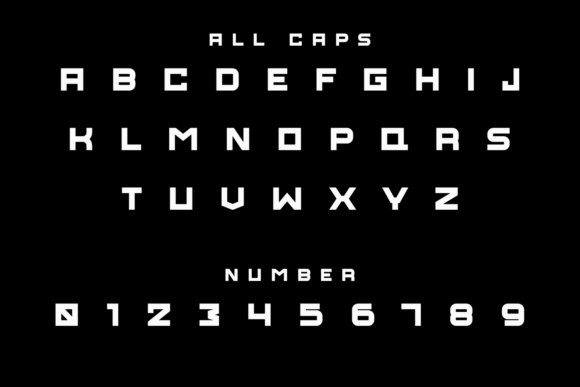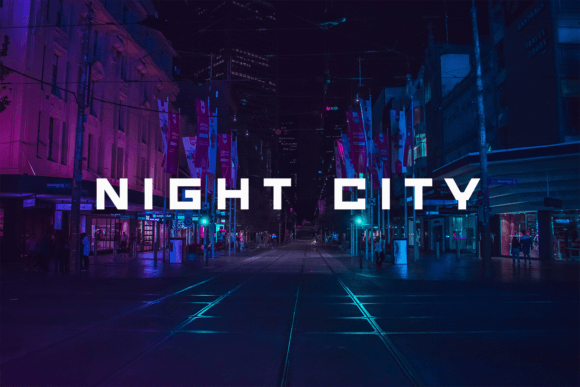
Introduction to Nowice Font
Have you ever been working on a creative project and felt like something was missing? The perfect image, the ideal color palette, but most importantly, the right font to tie it all together? This is where the Nowice Font comes in – a cool and unique display font that’s sure to elevate any design to the next level.
As a designer, you’re always on the lookout for the best design resources to help bring your vision to life. The Nowice Font is an incredible asset to any library, offering a high-quality, versatile option for any creative project. Whether you’re working on a digital design with a transparent background or a print project that needs a bold statement, this font is sure to impress.
Key Features of Nowice Font
- Features a high-quality design with a transparent background, allowing for flexibility in design composition.
- Designed to be highly legible, making it an ideal choice for body text in creative projects.
Honest Review: Nowice Font
As a designer, I’m always on the lookout for high-quality design resources to elevate my creative projects. The Nowice Font is one such resource that caught my attention recently.
What works well: ✨ The Nowice Font has a clean and modern design aesthetic that makes it perfect for a wide range of creative projects, from logos to typography-based designs. The font is also available for free download, which is a huge plus for designers on a budget.
- High quality: The Nowice Font is a well-crafted font with smooth lines and a transparent background, making it easy to use on any design project.
- Modern design: The Nowice Font has a modern design aesthetic that makes it perfect for contemporary creative projects.
However, there are a few limitations to consider: ⚠️ The font may not be suitable for all design projects, particularly those that require a more traditional or vintage aesthetic. Additionally, the font may not be as versatile as some other fonts on the market.
Overall impression: I’m impressed with the quality and design of the Nowice Font. While it may have some limitations, it’s a great resource for designers who want a high-quality, modern font for their creative projects.
The Nowice Font is suitable for a wide range of creative projects, including digital art, graphic design, print materials, and presentations. Its high-quality design and transparent background make it an ideal choice for designers seeking a reliable design resource.
Tips for Getting the Most Out of Nowice Font
For optimal results, use the Nowice Font in conjunction with a high-quality image or design element. Experiment with different font sizes and styles to create visually appealing designs. The Nowice Font is a valuable addition to any designer’s toolkit, offering a unique and versatile design resource for creative projects.